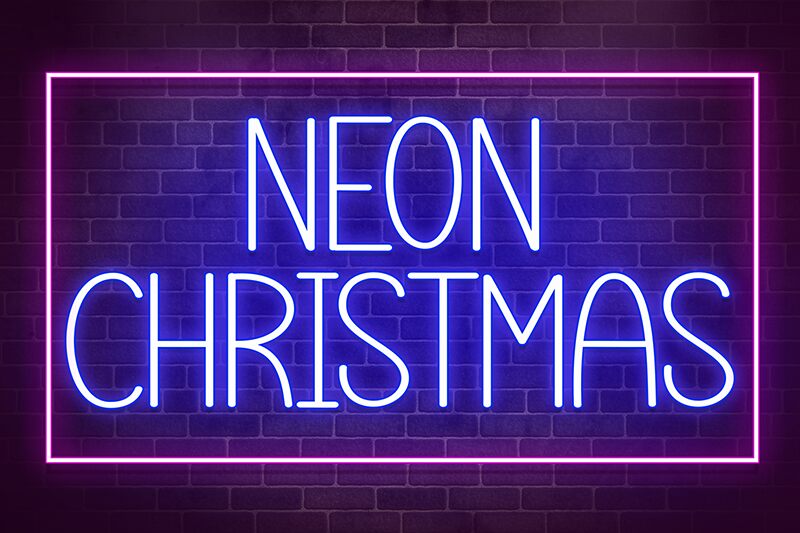
Neon Christmas
Neon Christmas font is a unique light handwritten font by Andi Moz with delightful character combinations. The font has a condensed width and narrow letter structure that make it ideal for creating logos, continuous headlines, and other designs carrying big text sections. Every letter uses simple line strokes in their form.
This free handwritten font is highly versatile for designing packaging, posters, covers, magazines spreads, t-shirts as well as patterns for gifts wrapping paper. Using this lovely typeface in branding identities can offer cool aesthetic values to the overall identity appearance. Other graphic design projects can use it extensively as well including patterns and infographics.